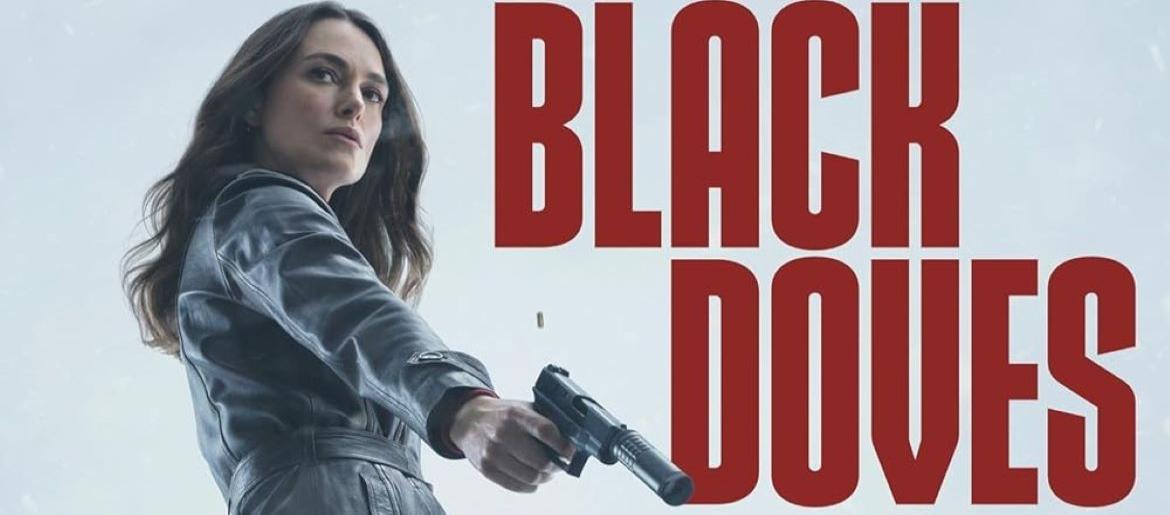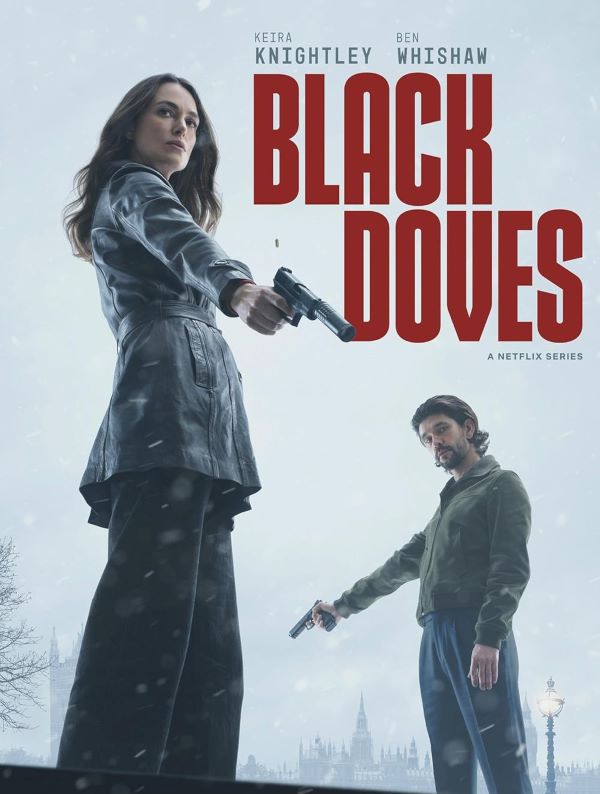
Black Doves Font
What Font is Black Doves?
The Black Doves Font mirrors the mysterious and sophisticated tone of the Netflix series with clean, confident lettering that feels both contemporary and cinematic. While there isn’t an exact match for the title typography, the closest typeface we’ve identified is Robson Semibold, a commercial font known for its sharp edges and balanced proportions. The letter “C” in the logo has a unique design, distinguishing it slightly from the standard Robson form. For designers seeking a similar look, we’ve also found a free alternative font that captures the same sleek, modern aesthetic — ideal for thriller posters, streaming series titles, or elegant branding concepts.
About Black Doves
Black Doves (2025) is a Netflix spy thriller series starring Keira Knightley and Ben Whishaw. The story follows a secret agent entangled in a dangerous web of deception and espionage in modern-day London. Blending emotional depth with high-stakes intrigue, the show delivers a gripping mix of mystery, betrayal, and suspense.